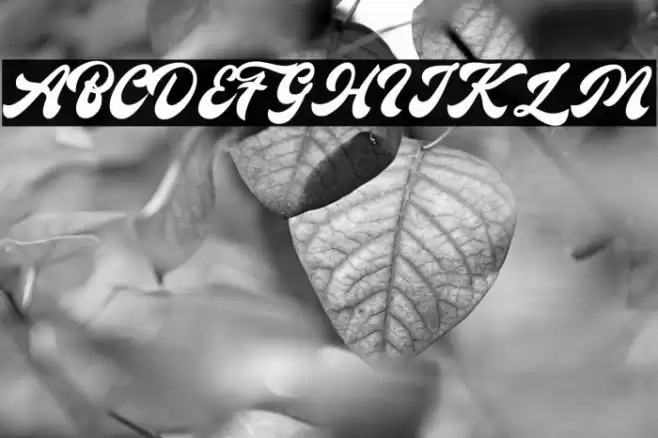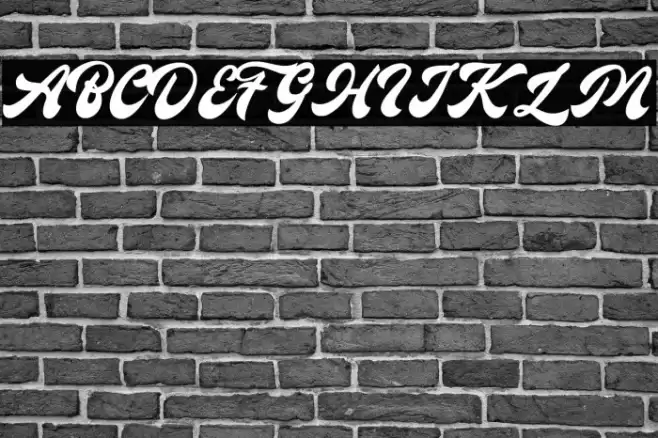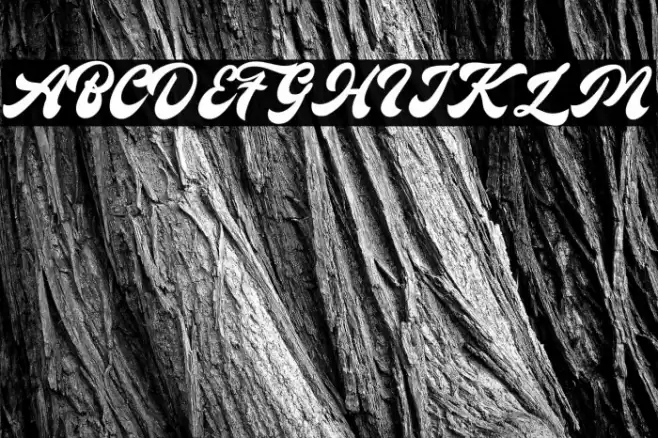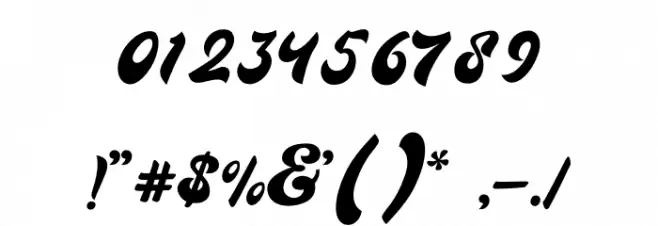
Antique Cable Font
Antique Cable Description
This font features a bold and flowing script style, reminiscent of classic calligraphy with a modern twist. The characters are interconnected, creating a seamless and elegant appearance. The uppercase letters are slightly more elaborate, with sweeping curves and flourishes, while the lowercase letters maintain a consistent flow. The numerals and special characters are designed to match the overall aesthetic, ensuring a cohesive look across all text. This font's boldness and fluidity make it ideal for projects that require a touch of sophistication and flair.
A bold, flowing script font with elegant, interconnected characters from Uncategorized fonts.
- Font: Antique Cable
- Character Spacing: Tight
- Overall Style: Classic